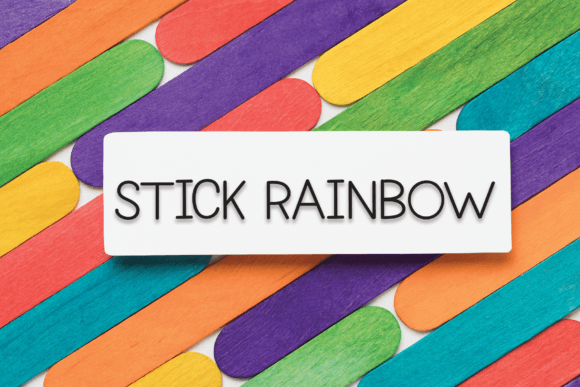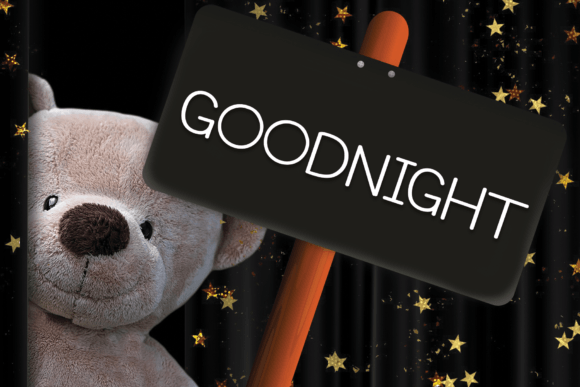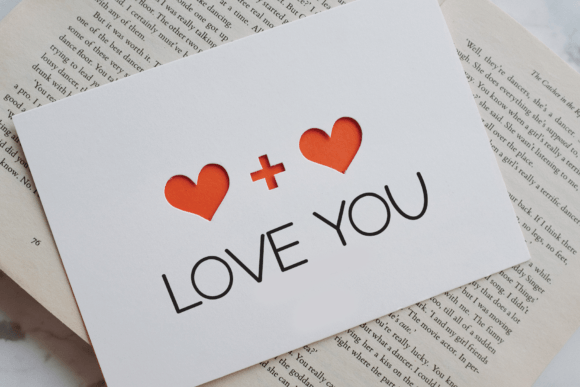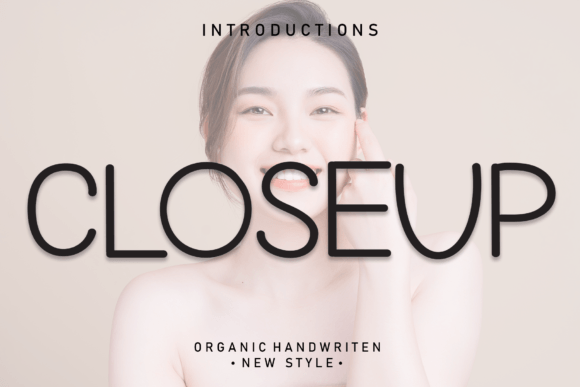
Introducing Closeup Font: The Ultimate Handwritten Font for Creative Projects
Are you tired of using the same old fonts for your creative projects? Look no further than Closeup Font, a fun and friendly handwritten font that’s perfect for crafts, digital design, presentations, and creating greeting cards. With its unique and charming style, Closeup Font has the potential to become your go-to font for any occasion.
The Characteristics of Closeup Font
Closeup Font is a handwritten font that’s designed to add a personal touch to your projects. Its fun and friendly style makes it perfect for a wide range of applications, from crafting and scrapbooking to digital design and presentations. The font features:
• Unique lettering style: Closeup Font has a distinctive lettering style that’s both playful and elegant. The font features rounded edges and a relaxed feel, making it perfect for creating friendly and approachable designs.
• High readability: Despite its playful style, Closeup Font is highly readable, even at small sizes. This makes it perfect for use in a variety of applications, from body text to headings and titles.
• Versatility: Closeup Font is incredibly versatile, making it suitable for a wide range of projects, from crafting and scrapbooking to digital design and presentations.
Uses for Closeup Font
Closeup Font is perfect for a wide range of creative projects, including:
• Crafts and scrapbooking: Add a personal touch to your crafts and scrapbooking projects with Closeup Font. Use it to create journaling cards, tags, and other embellishments.
• Digital design: Use Closeup Font to add a friendly and approachable feel to your digital designs, from social media graphics to blog posts and website headers.
• Presentations: Add a touch of personality to your presentations with Closeup Font. Use it to create engaging titles, headings, and bullet points.
• Greeting cards: Create beautiful and personalized greeting cards with Closeup Font. Use it to add a special touch to your handmade cards and gift tags.
Why Choose Closeup Font?
So why choose Closeup Font over other fonts? Here are just a few reasons:
• Easy to read: Closeup Font is highly readable, even at small sizes, making it perfect for use in a variety of applications.
• Unique style: Closeup Font has a unique and charming style that’s sure to make your projects stand out.
• Versatile: Closeup Font is incredibly versatile, making it suitable for a wide range of projects and applications.
• Fun and friendly: Closeup Font has a fun and friendly feel that’s perfect for creating approachable and engaging designs.
Tips for Using Closeup Font
Here are a few tips for getting the most out of Closeup Font:
• Use it with images: Closeup Font pairs perfectly with images, especially those with a playful or whimsical feel.
• Experiment with colors: Closeup Font looks great in a variety of colors, from bright and bold to soft and pastel.
• Mix it with other fonts: Closeup Font pairs well with other fonts, especially those with a bold or serif style.
• Use it consistently: Use Closeup Font consistently throughout your project to create a cohesive and professional look.
Closeup Font is a fun and friendly handwritten font that’s perfect for creative projects of all kinds. With its unique style, high readability, and versatility, it’s sure to become your go-to font for any occasion. Whether you’re a designer, crafter, or simply someone who loves to create, Closeup Font is a great addition to your font collection.